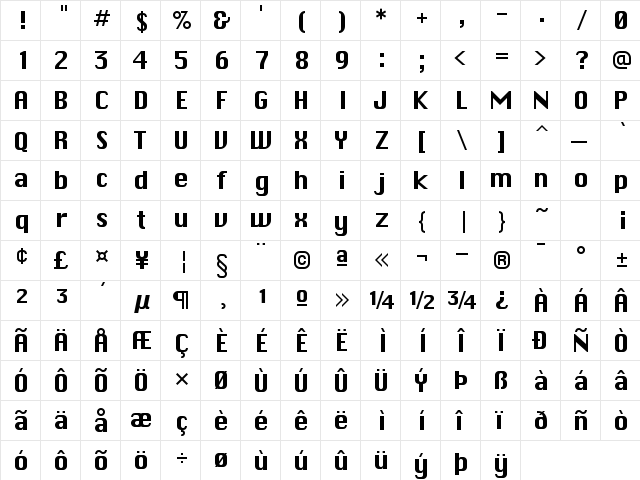
Chicago, Illinois Regular Font Preview
Chicago, Illinois Regular
Design Context for Chicago, Illinois Typeface
Chicago, Illinois offers clean, dependable letterforms without strong stylistic allegiance, making it a practical choice for designers who need flexibility.
Pro Tip: Pair Chicago, Illinois with a font of contrasting weight or personality to build a more expressive typographic hierarchy.